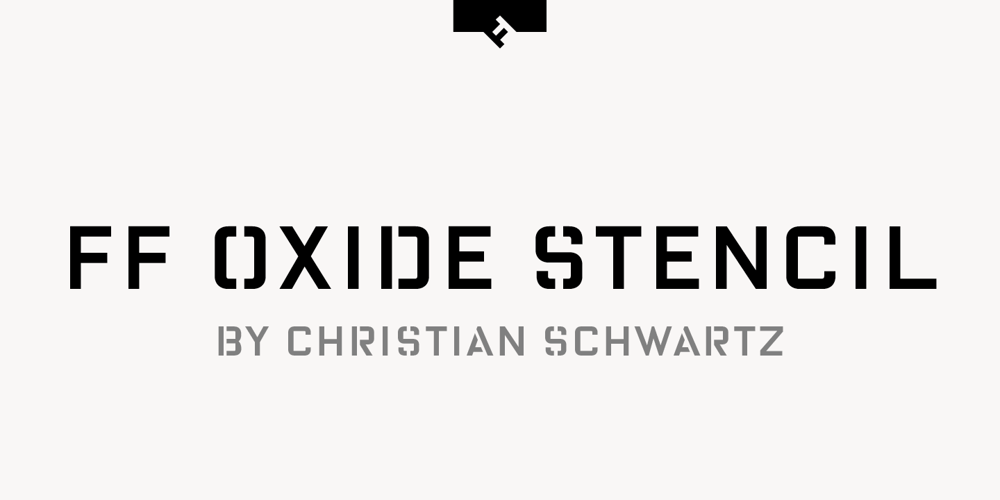
FF Oxide Stencil Font Family was designed by Christian Schwartz and published by FontFont. FF Oxide Stencil contains 3 styles and family package options. American type designer Christian Schwartz created this display and sans FontFont in 2005. The family contains 3 weights: Light, Regular, and Bold and is ideally suited for advertising and packaging, music and nightlife, poster and billboards, software and gaming as well as sports. FF Oxide Stencil provides advanced typographical support with features such as ligatures, titling alternates, case-sensitive forms, fractions, super- and subscript characters, and stylistic alternates. It comes with tabular lining and proportional lining figures. This FontFont is a member of the FF Oxide super family, which also includes FF Oxide Solid.